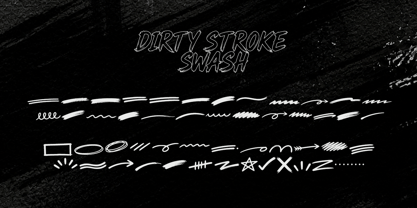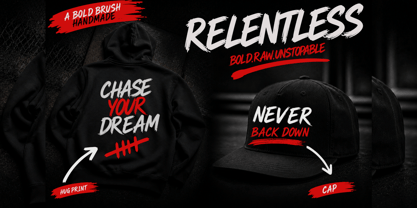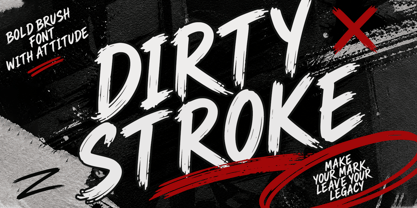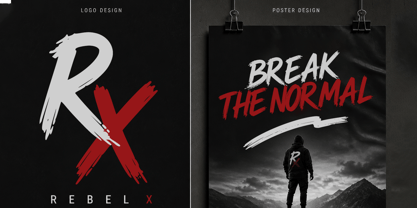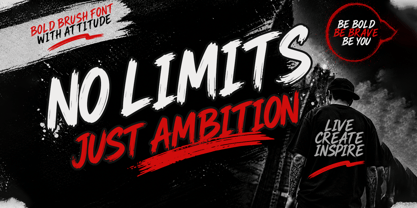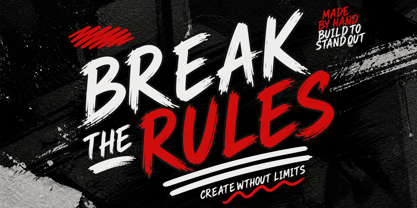
Dirty Stroke
by Cocodesign
The Dirty Stroke Font Family was designed by Muhammad Zaini and published by Cocodesign. Dirty Stroke contains 3 styles and family package options. More about this family
Dirty Stroke is a bold and expressive brush font, meticulously crafted from rough, hand-painted strokes and enhanced with extra swash elements. Its textured edges and dynamic forms create a strong, gritty appearance that instantly captures attention. The additional swashes provide greater flexibility in design, enabling the creation of striking compositions, bold headlines, and eye-catching typography with ease. Each letter embodies an energetic and raw essence, making it ideal for designs that require a powerful visual impact. Perfect for a diverse array of creative projects, Dirty Stroke excels in branding, posters, merchandise, and digital content that demand a bold and edgy aesthetic.
Designers: Muhammad Zaini
Foundry: Cocodesign